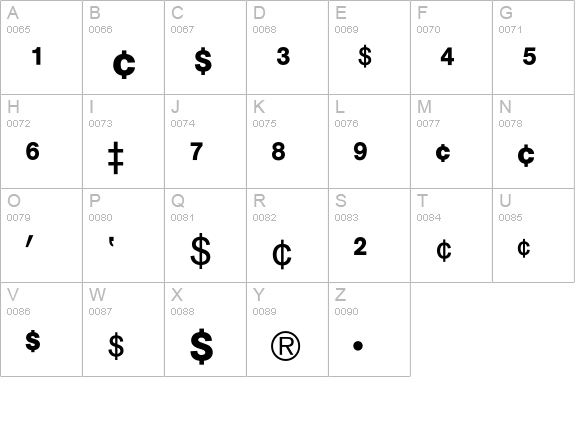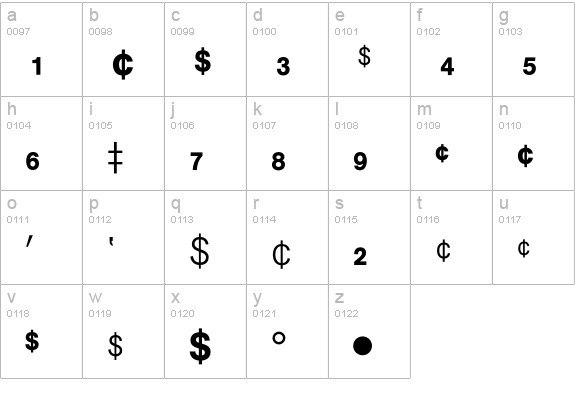
Akzidenz-Grotesk Fractions Font Details
Akzidenz-Grotesk Fractions font is a stunning and versatile typeface that brings a touch of elegance and sophistication to any design project. With its clean lines and modern aesthetic, this font is perfect for creating eye-catching headlines, logos, and branding materials. One of the standout features of Akzidenz-Grotesk Fractions font is its unique and stylish fractions, which add a special touch to any typography layout. The fractions are designed with precision and care, ensuring that they seamlessly blend into the overall design. Best of all, Akzidenz-Grotesk Fractions font is available for free download at FontsMarket.com. This means that you can easily access this beautiful font and use it in your projects without any cost. Whether you're a professional designer or a hobbyist, Akzidenz-Grotesk Fractions font is a must-have addition to your font collection.